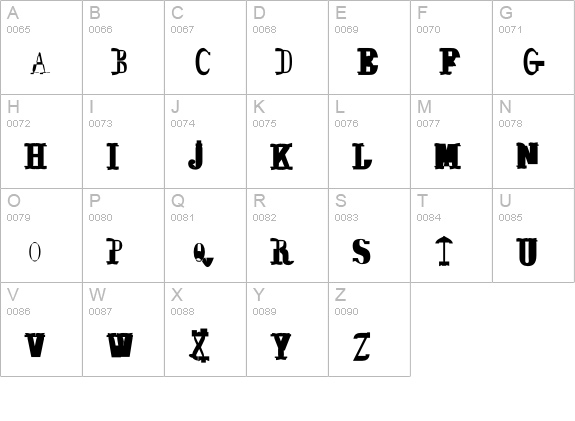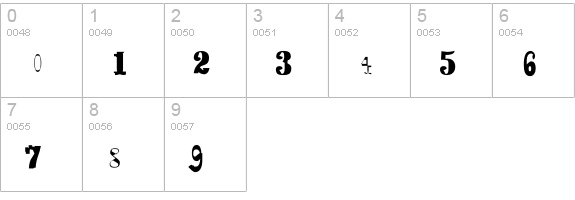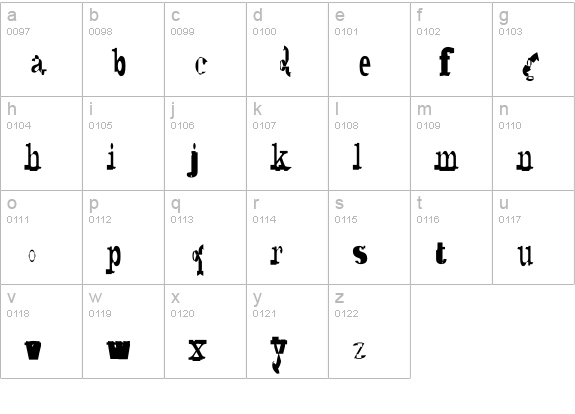
SyzygyBluntText Font Details
SyzygyBluntText font is a unique and modern typeface that brings a perfect blend of elegance and creativity to your design projects. With its sleek lines and subtle curves, this font exudes sophistication and charm. Its bold and eye-catching appearance makes it ideal for a wide range of applications, from branding to editorial design. What sets SyzygyBluntText font apart is not just its striking design, but also the fact that it is available for free download at FontsMarket.com. This means that you can easily access this versatile font without any cost, allowing you to unleash your creativity without limitations. Whether you are working on a personal project or a professional design endeavor, SyzygyBluntText font is sure to elevate your work to the next level. Experience the beauty and versatility of SyzygyBluntText font today by downloading it for free at FontsMarket.com. Let this stunning typeface inspire your creativity and help you make a lasting impression with your designs.